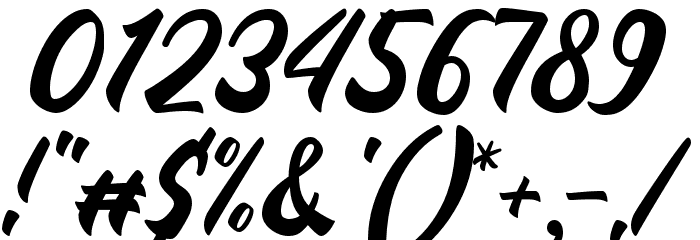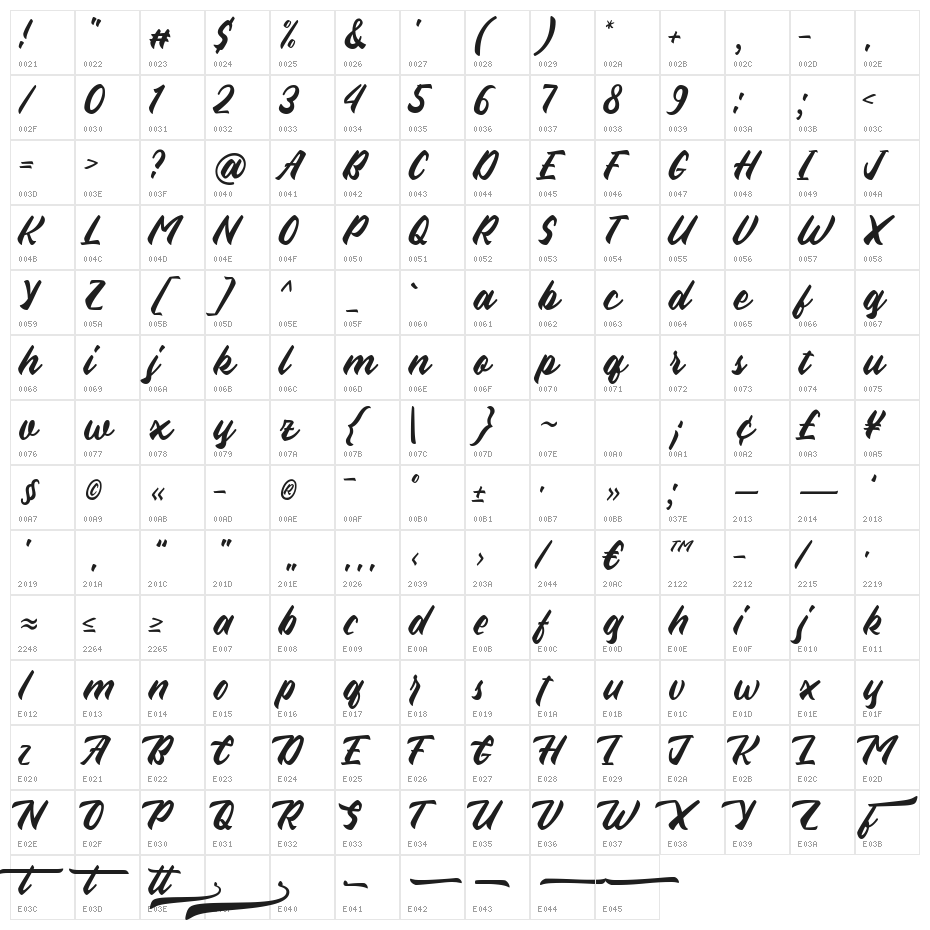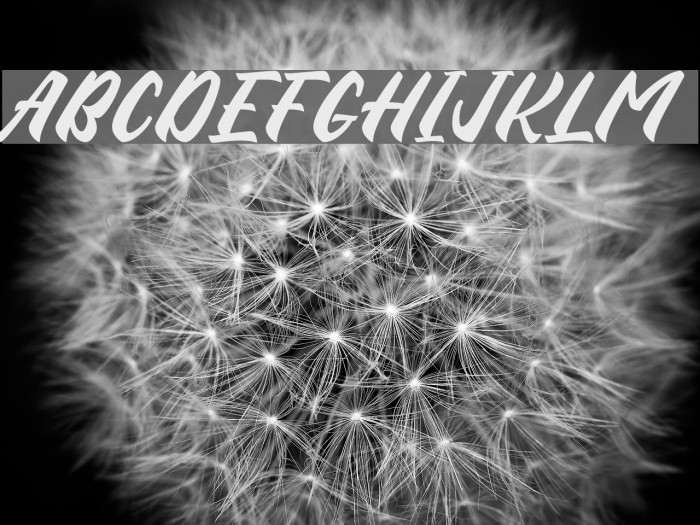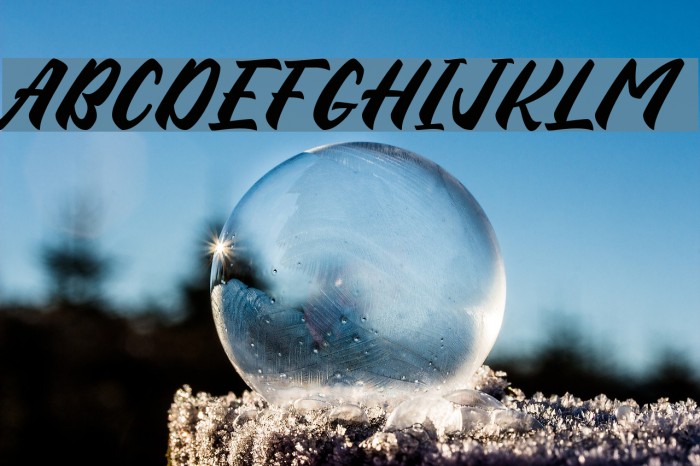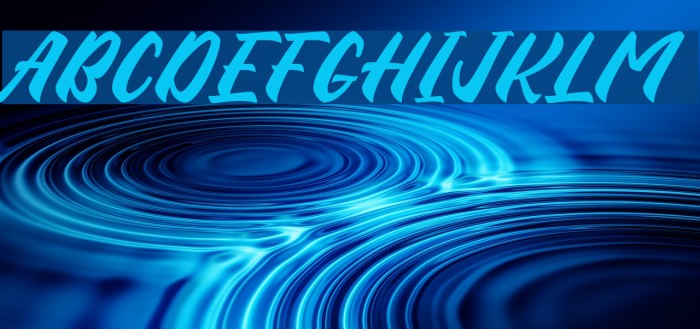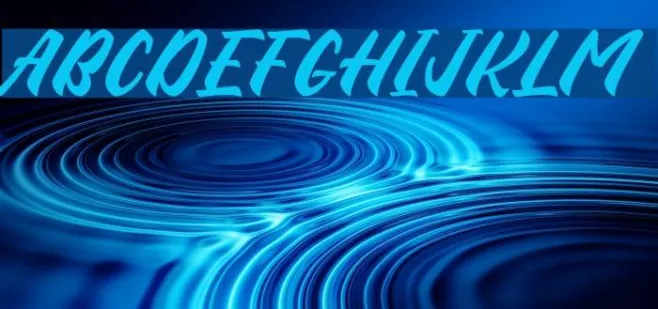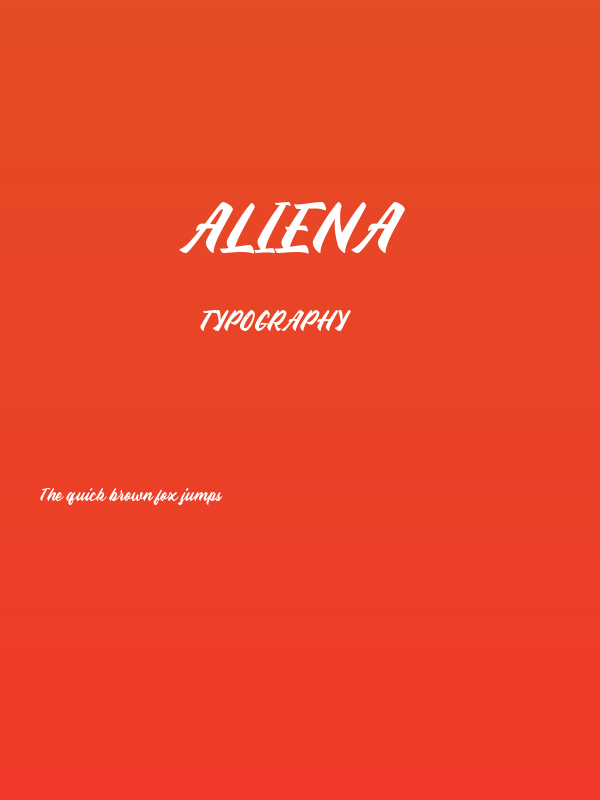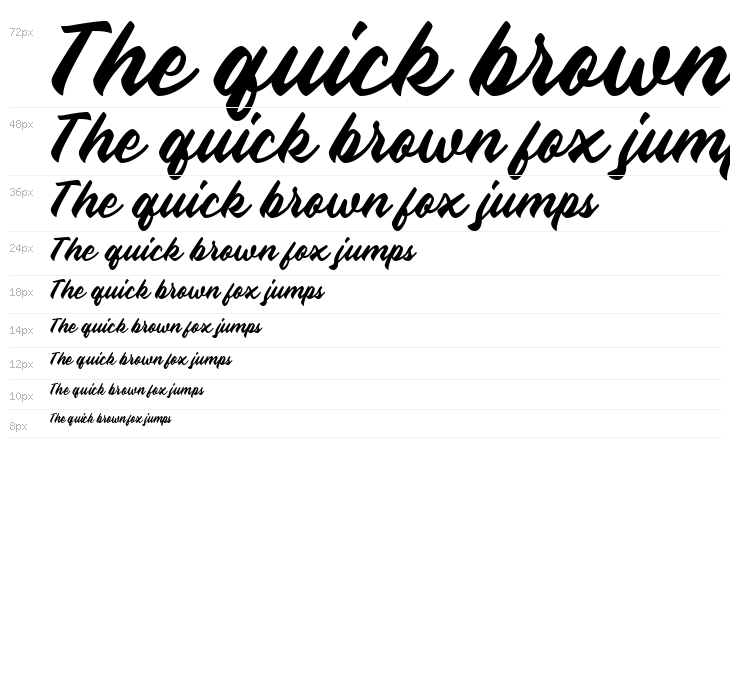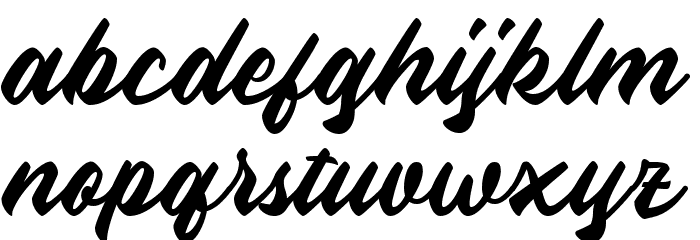
Aliena Font
Aliena Description
This font exudes a dynamic and energetic style with its bold, flowing script. The characters are connected in a cursive manner, giving it a handwritten feel. The strokes are thick and consistent, providing a strong visual impact. The uppercase letters are slightly more formal, while the lowercase letters maintain a casual, approachable look. The numerals and special characters are designed to match the overall style, ensuring uniformity across all elements. This font is ideal for projects that require a personal touch or an expressive, artistic flair.
| Proposed Projects | Perfect for branding, invitations, greeting cards, and artistic projects that require a personal touch. |